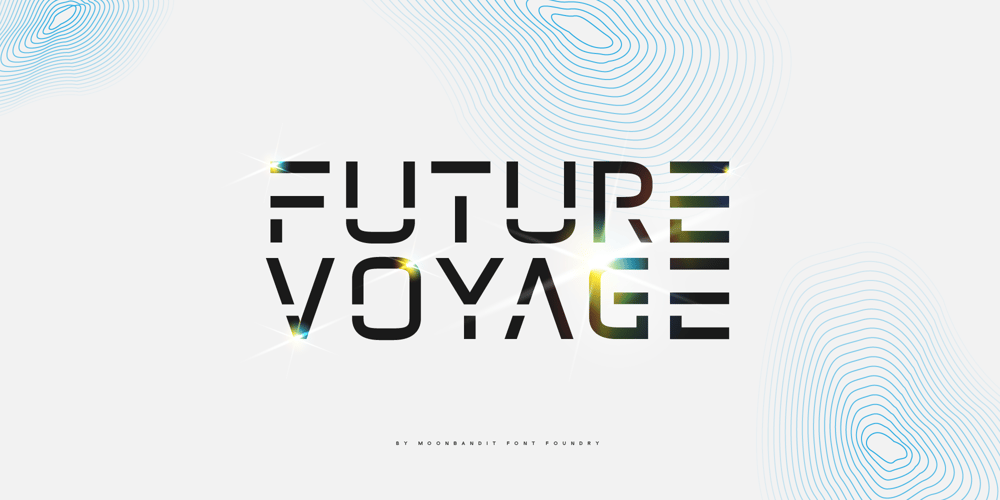
MBF Future Voyage Font Family was designed by Bramaji Dipa Manggala and published by Moonbandit. MBF Future Voyage contains 1 styles and family package options. Future Voyage, a clean modern futuristic sans serif display font. This typeface is perfect for minimalist scifi theme. Perfect usage as logo, poster, display, headline, t-shirt design and many more.